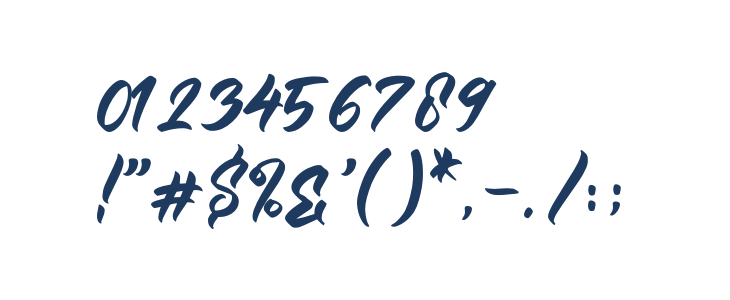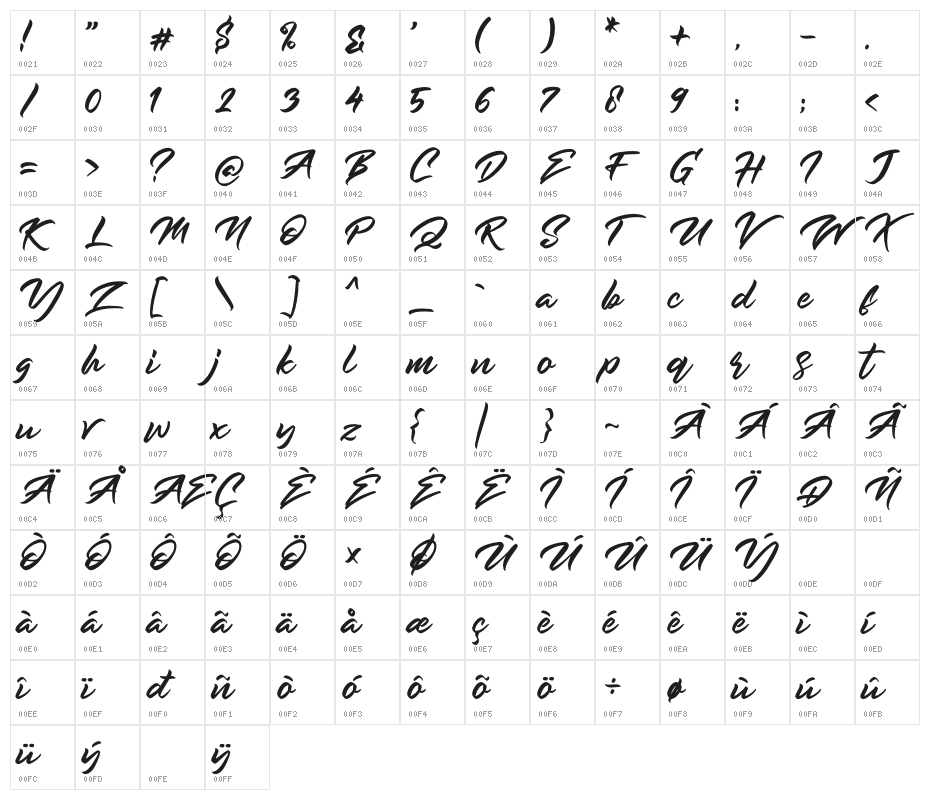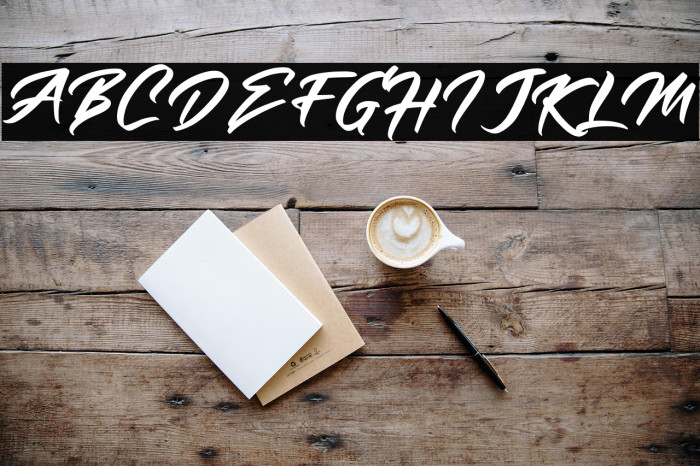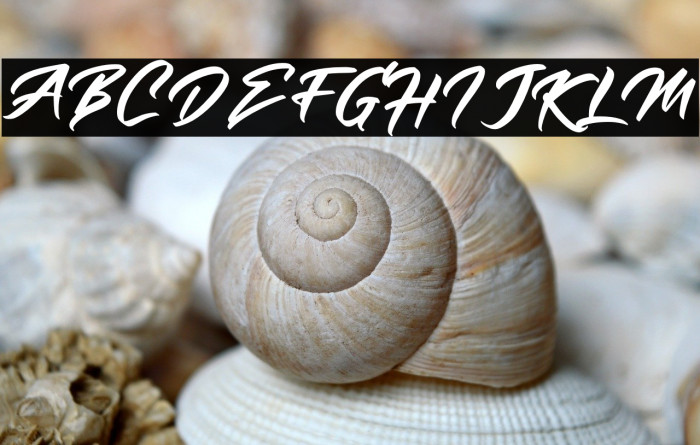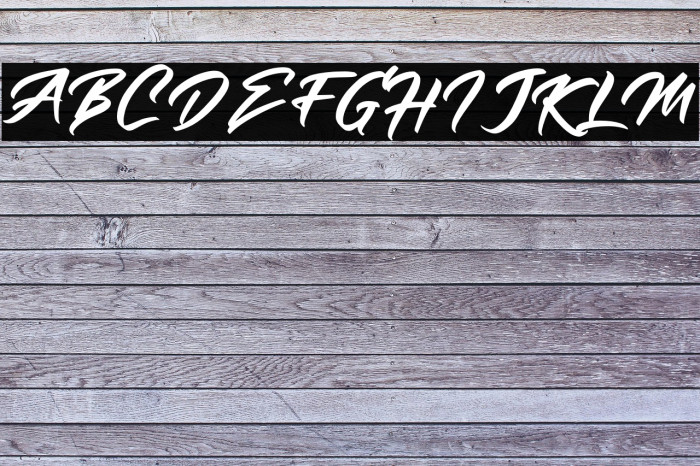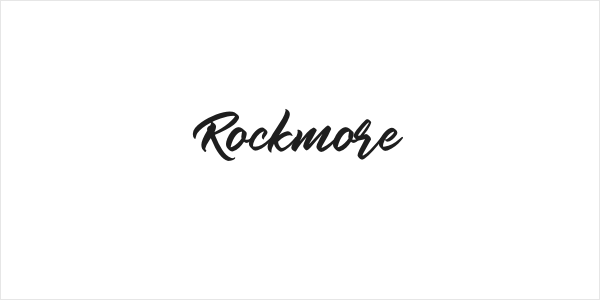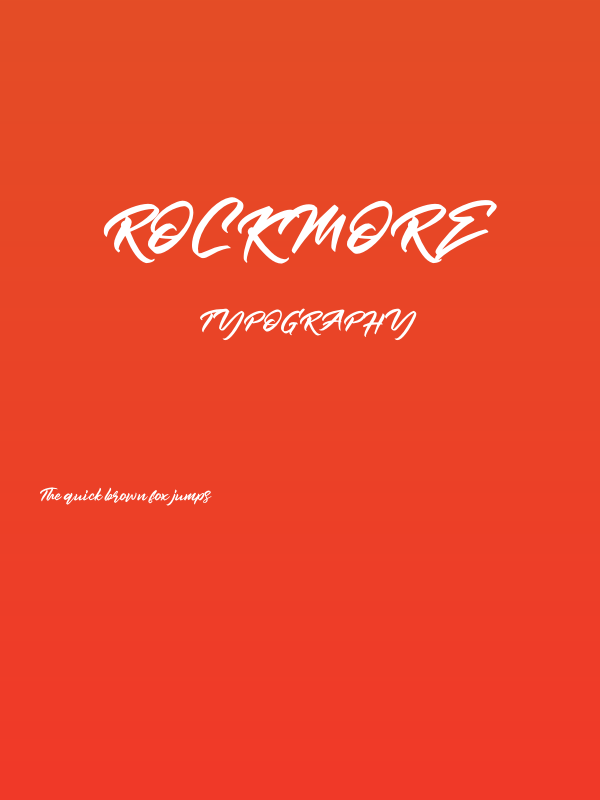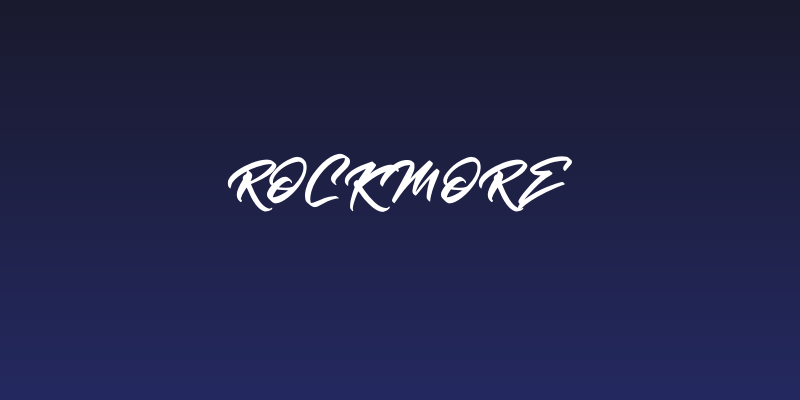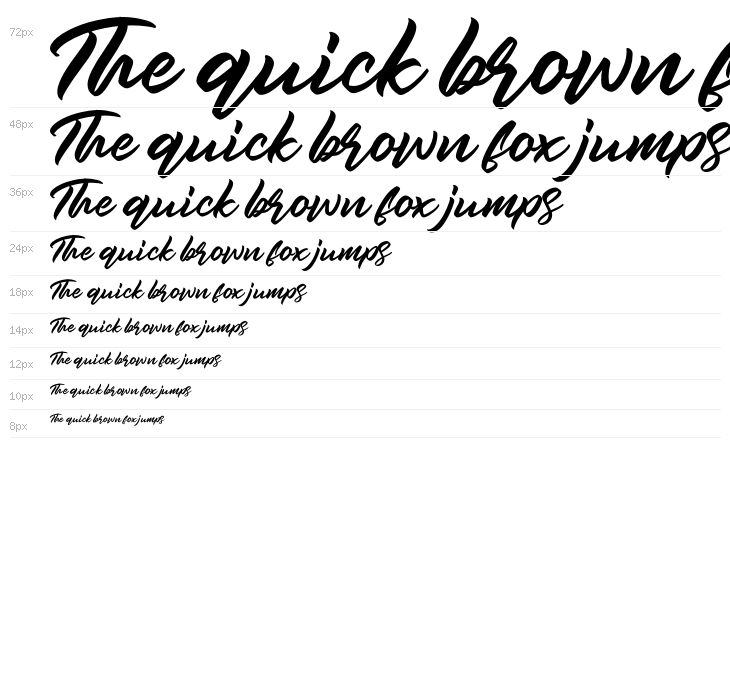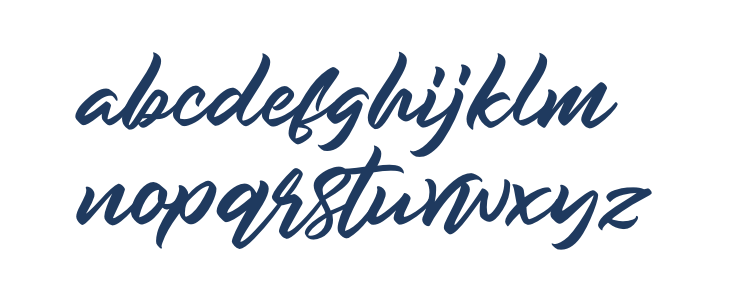
Rockmore Font
Rockmore Description
This font features a bold and dynamic script style, characterized by its fluid and cursive letterforms. The strokes are thick and expressive, giving a sense of movement and energy. The uppercase letters are slightly more angular, while the lowercase letters maintain a smooth, flowing appearance. The numbers and special characters are consistent with the overall style, offering a cohesive look. The font's design is reminiscent of hand-lettered calligraphy, making it suitable for projects that require a personal and artistic touch.
| Proposed Projects | Ideal for branding, invitations, greeting cards, and artistic projects that require a personal touch. |